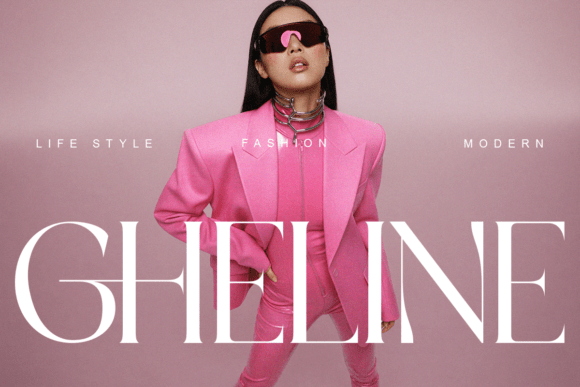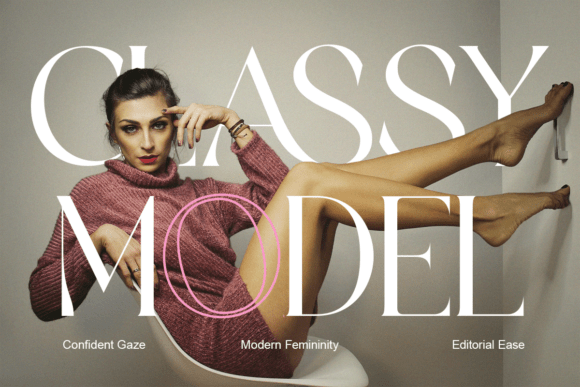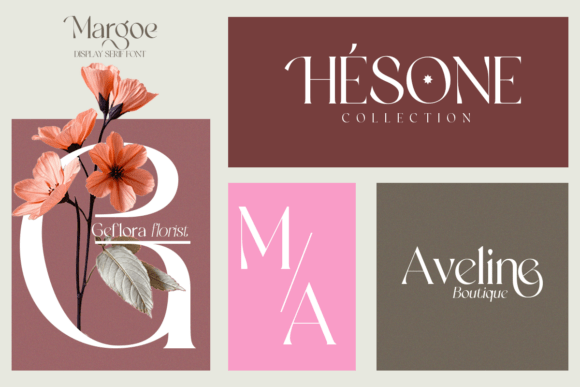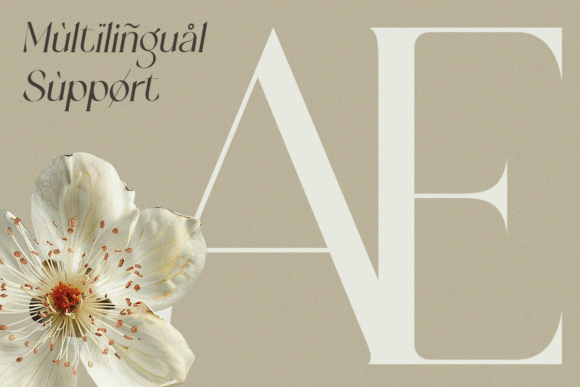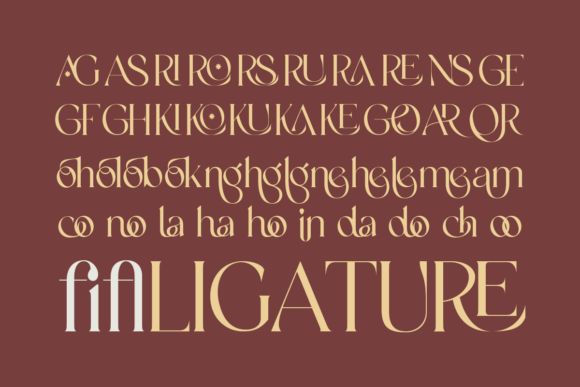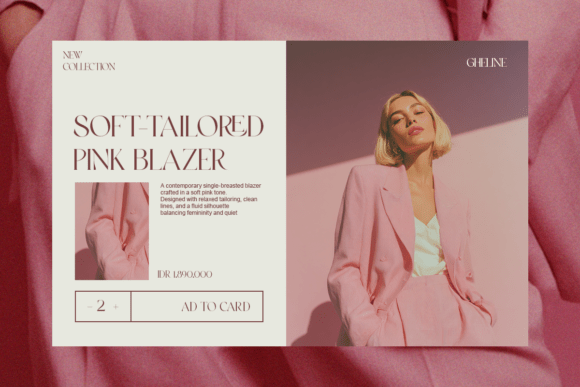
Introduction to Margoe Font
Margoe Font is a stylish elegant serif typeface created for luxury branding and feminine visual identity.
Its graceful curves, premium structure, and refined details make it perfect for logos, editorials, invitations, packaging, and beauty brands This serif font blends timeless elegance with modern softness for high-end creative projects.